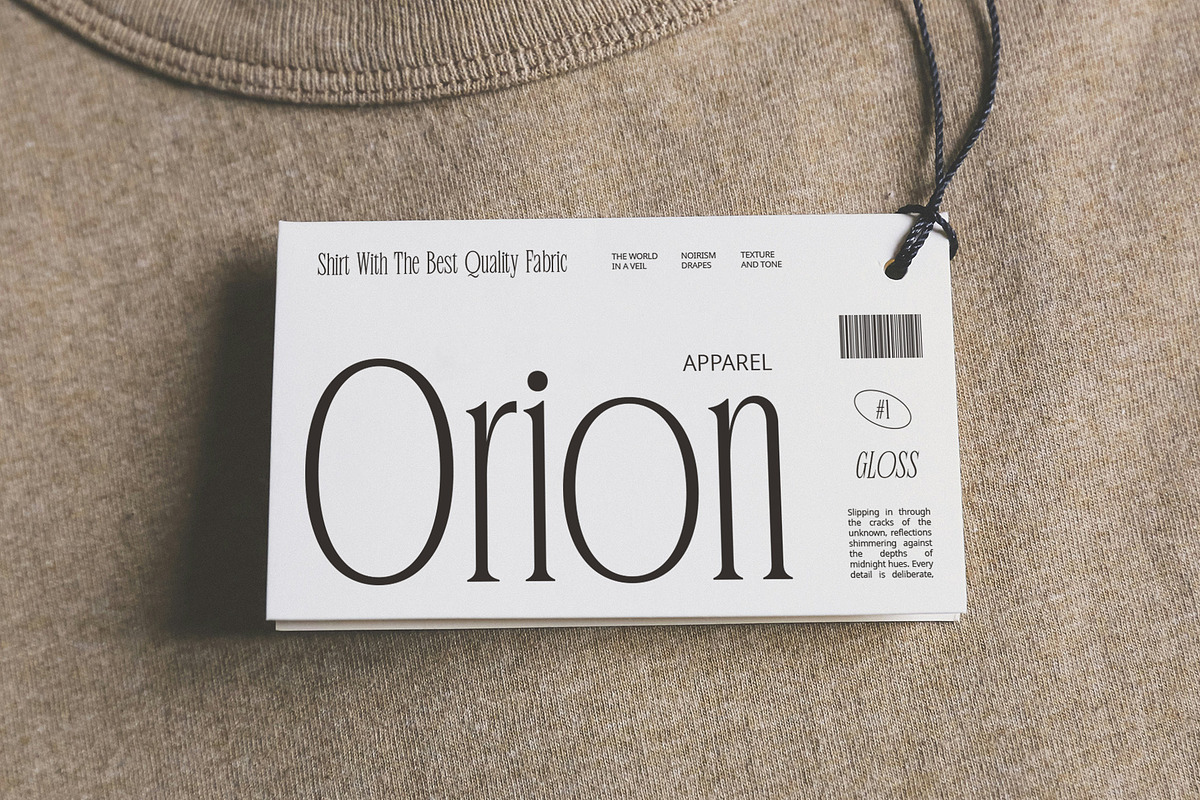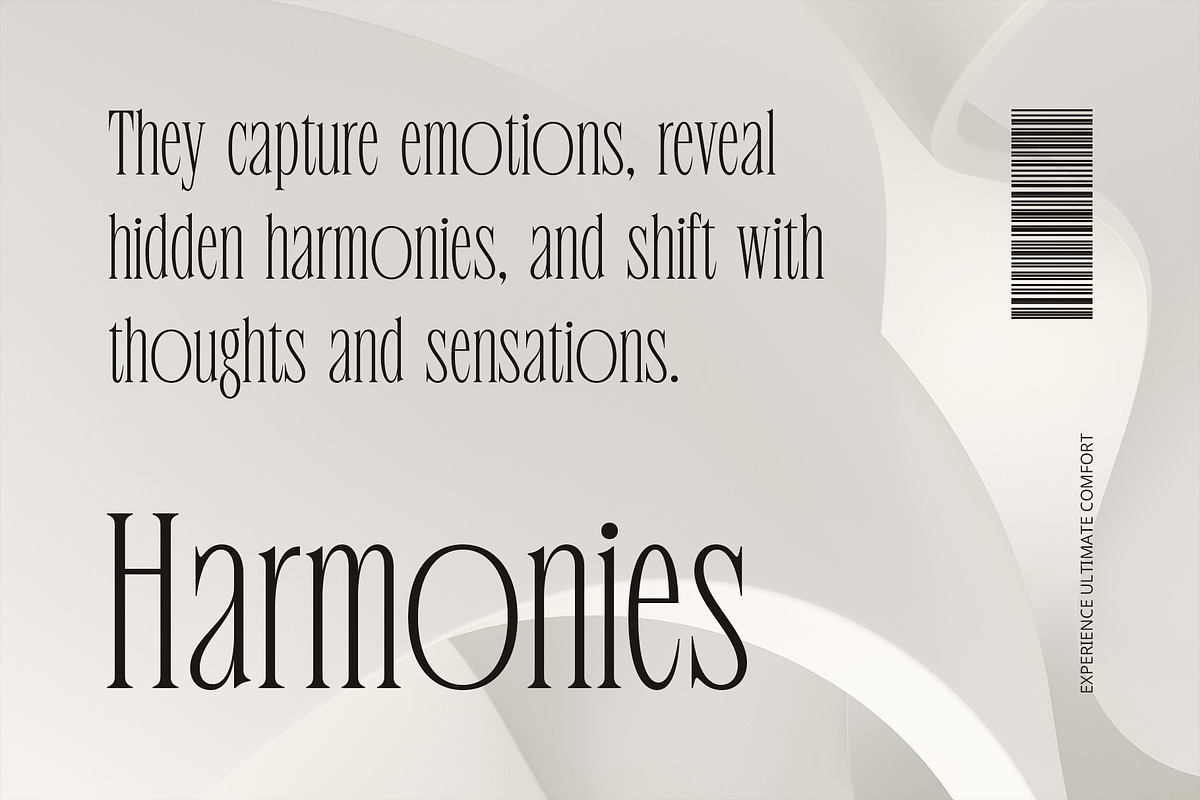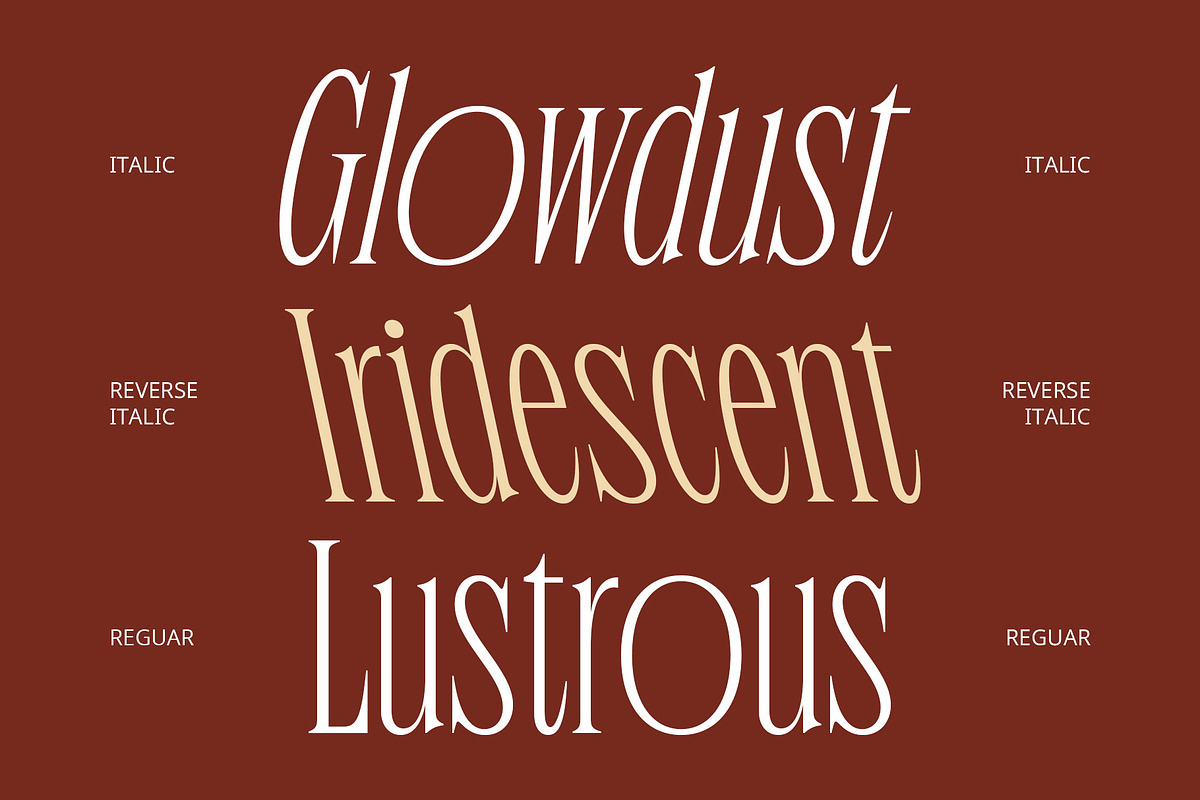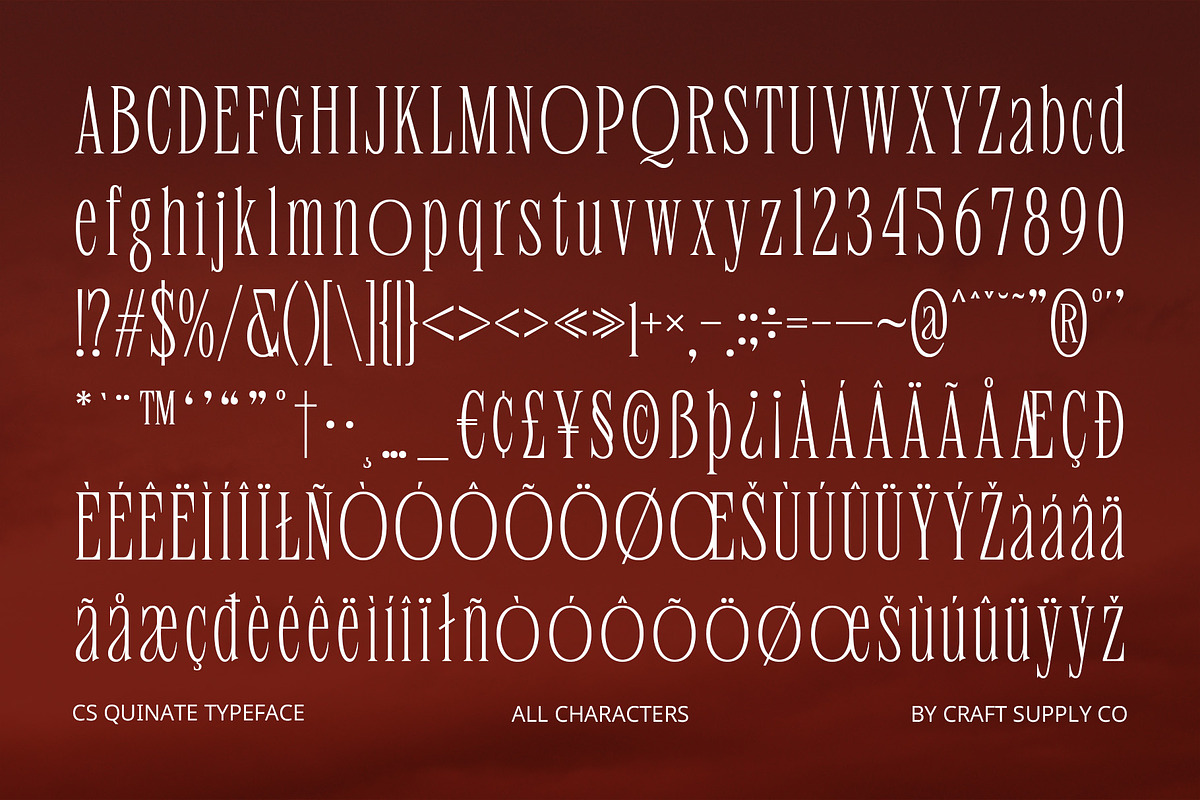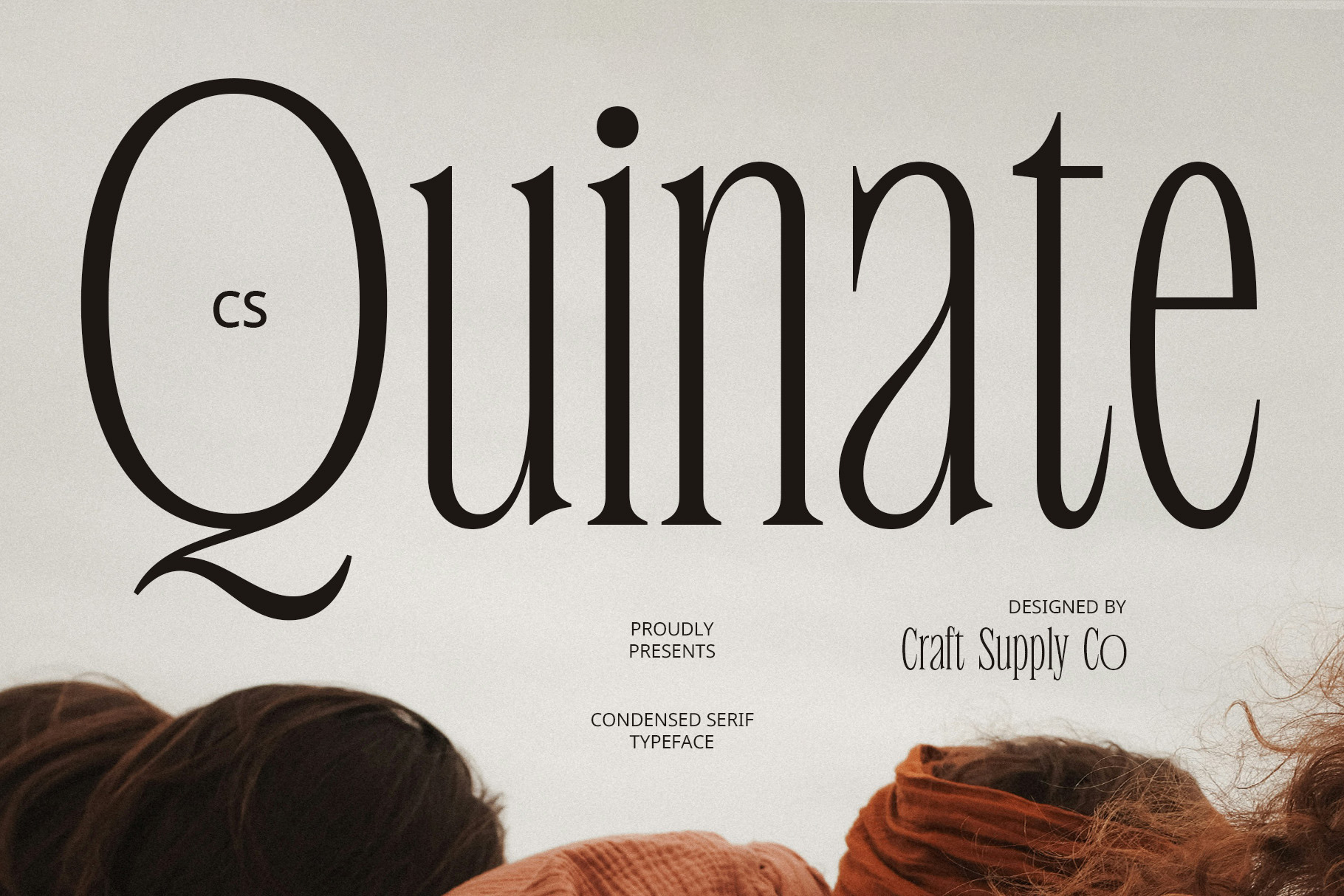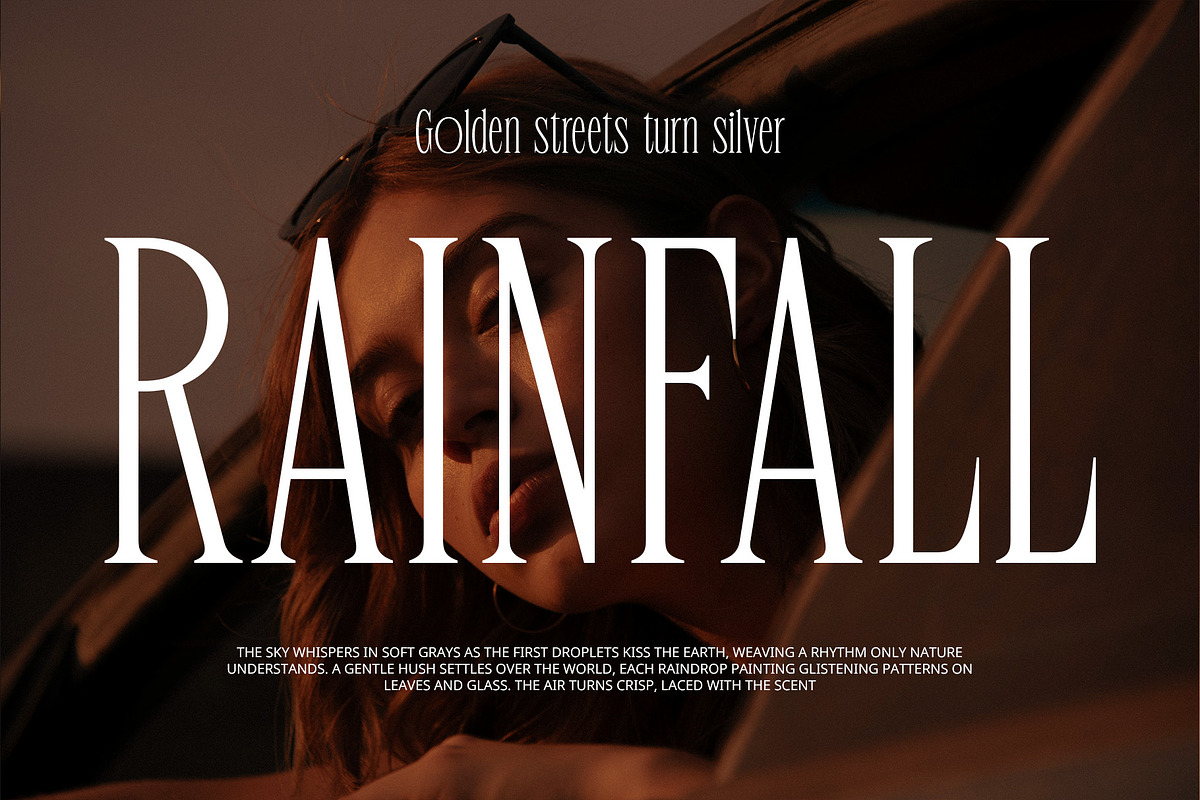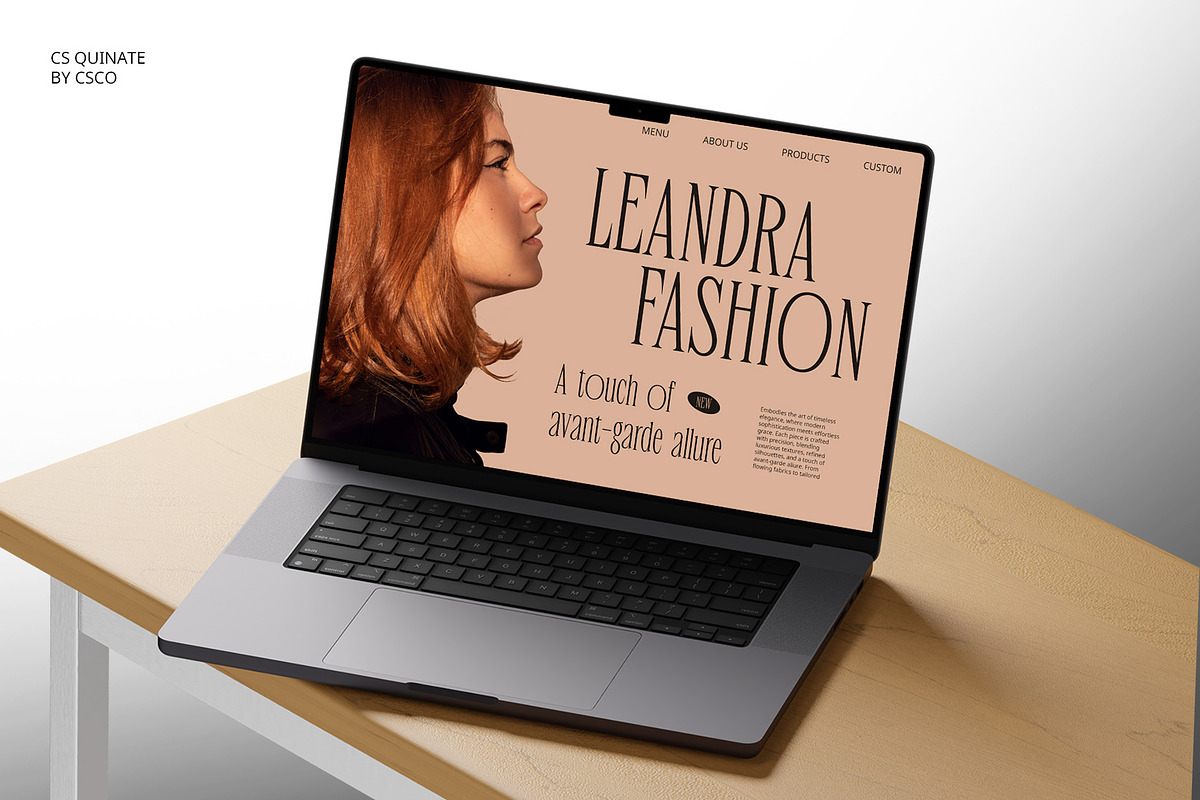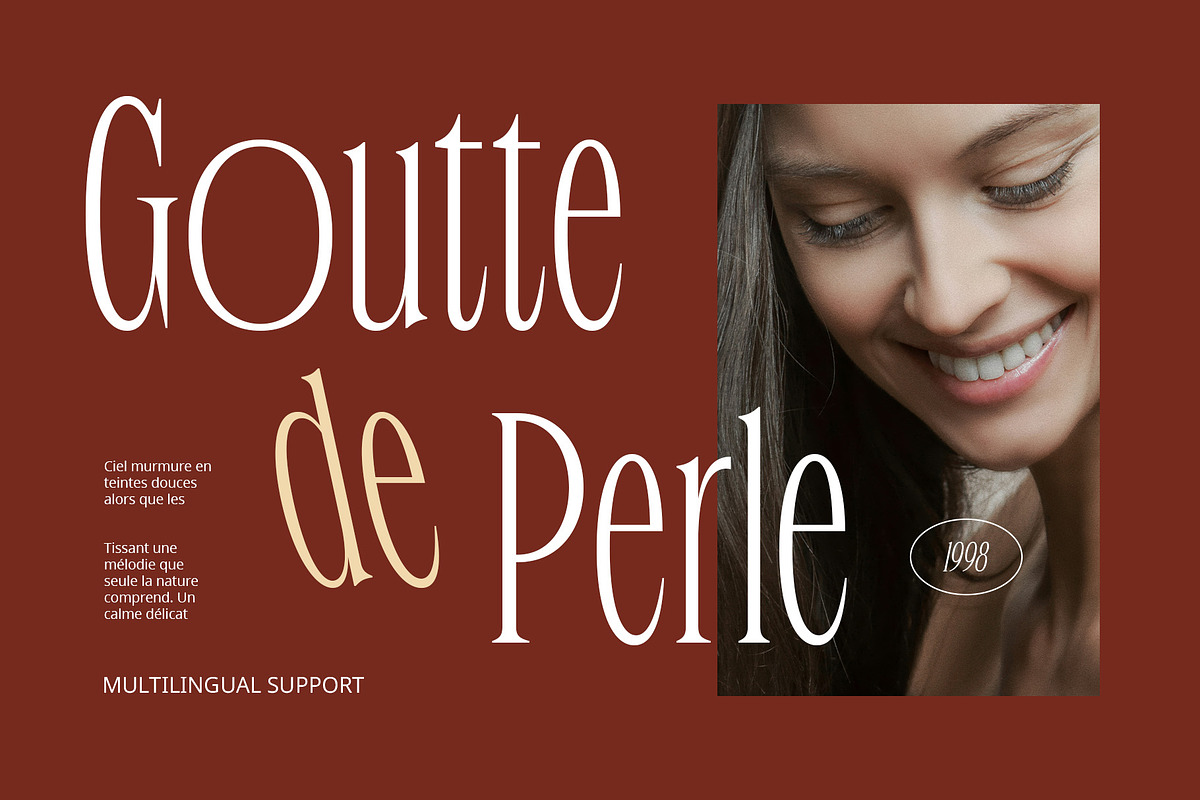
CS Quinate – Condensed Font
CS Quinate – A Refined Condensed Serif Font
Sleek, Elegant, and Distinctive CS Quinate is a modern serif font with a condensed structure and elongated serifs, designed to exude sophistication and grace. Its slim proportions and refined letterforms create a minimalist yet striking visual impact, perfect for designs that demand a luxurious and high-end aesthetic.
Timeless with a Contemporary Edge Merging classic serif elegance with a modern touch, CS Quinate offers a balanced mix of tradition and innovation. Its narrow spacing and sharp details add a sense of precision and style, making it ideal for editorial layouts, branding, fashion labels, and premium packaging.
Versatile and High-End Appeal Designed for versatility in luxury design, CS Quinate is well-suited for magazine headlines, elegant invitations, sophisticated advertisements, and upscale brand identities. Whether used in large, eye-catching titles or refined body text, its clean yet expressive look ensures a polished and captivating presence.
Elevate Your Typography With its chic and distinguished personality, CS Quinate is the perfect font for designers looking to create high-impact visuals with a refined and timeless appeal. Use it to enhance elegance, establish authority, and bring a touch of exclusivity to your projects.
- CS Quinate Regular
- CS Quinate Italic
- CS Quinate Reverse Italic